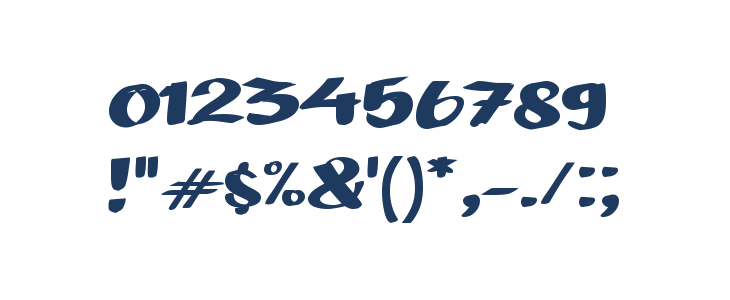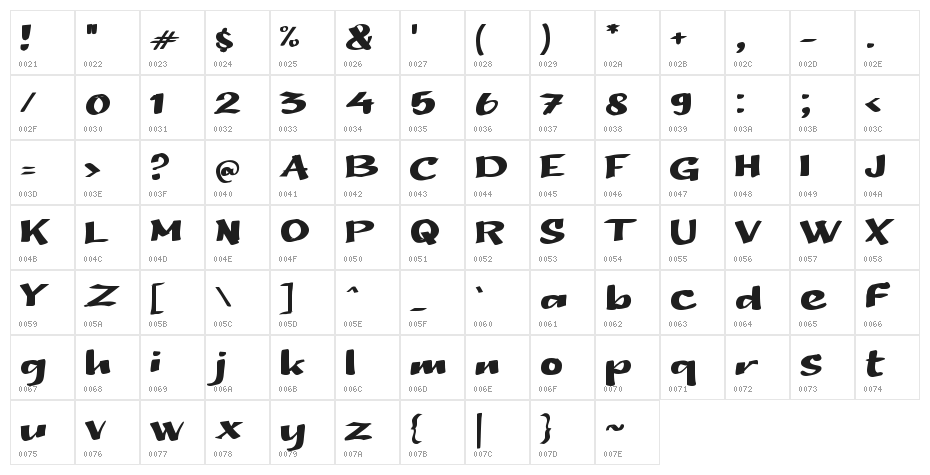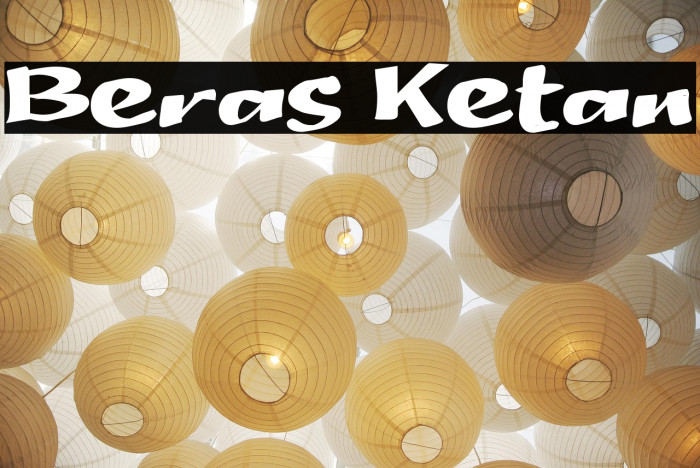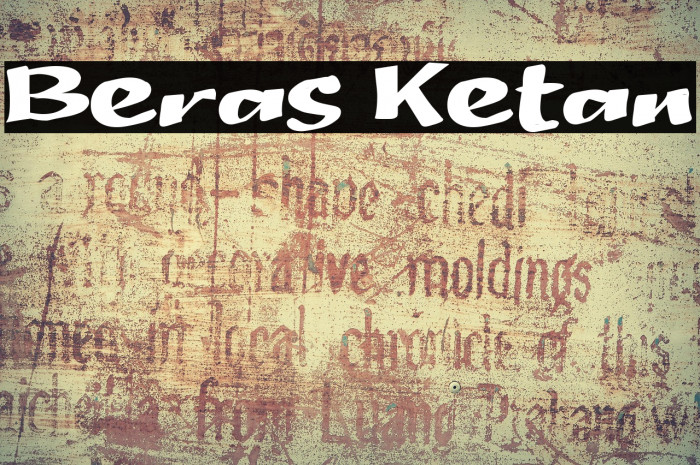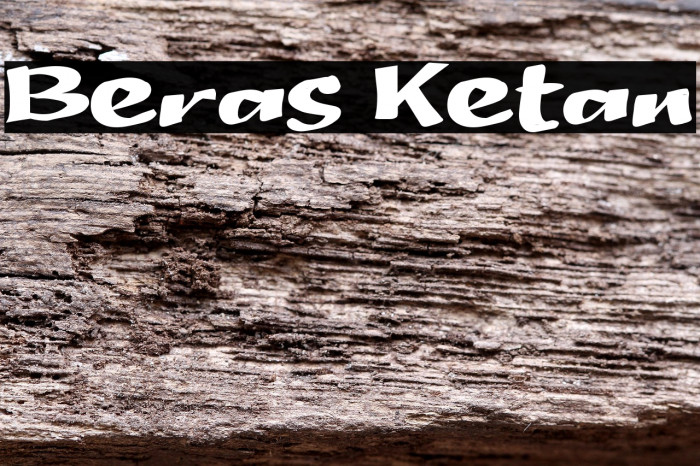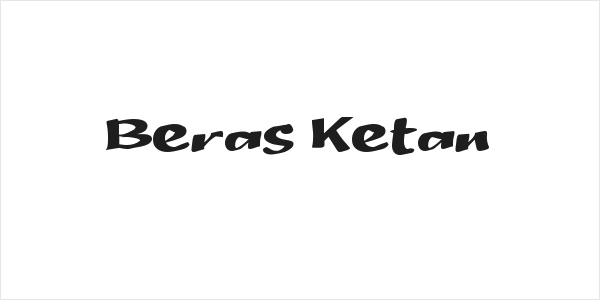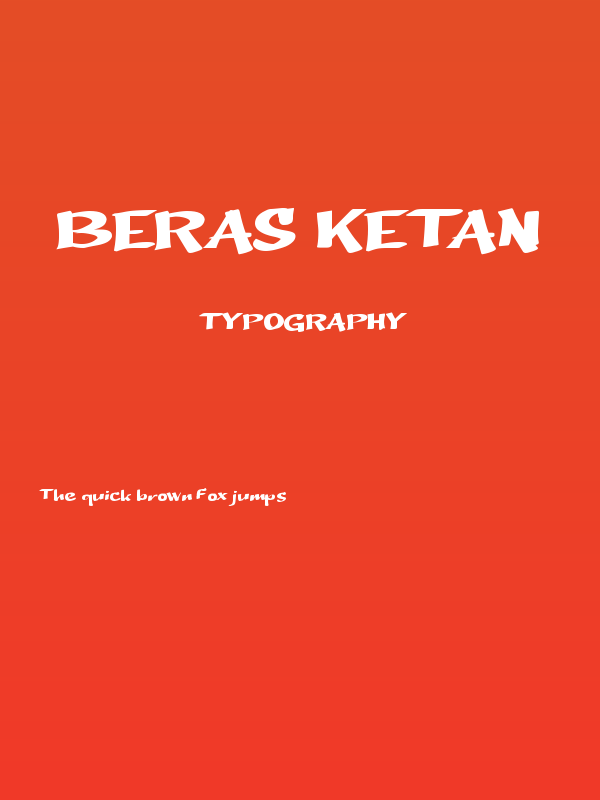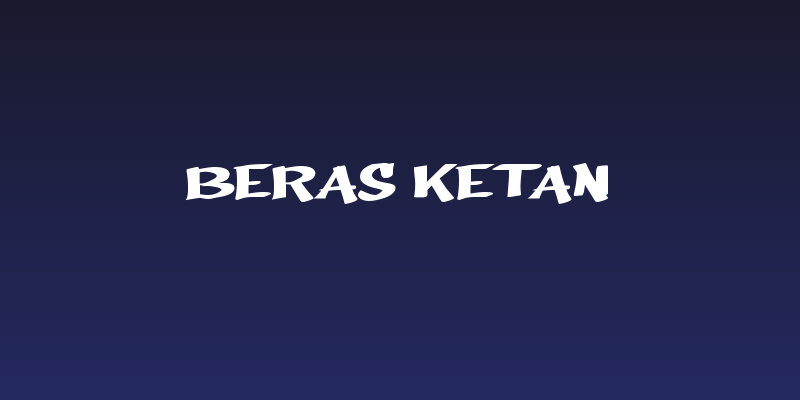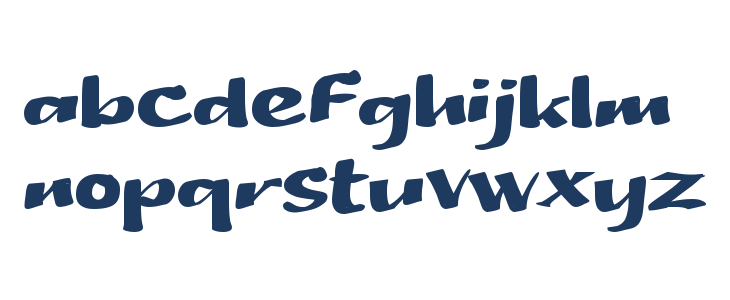
Beras Ketan Font
Beras Ketan Description
This font features a bold and dynamic style with a handwritten appearance. The characters are thick and slightly slanted, giving a sense of movement and energy. The strokes are uneven, adding a casual and informal touch. The uppercase letters are bold and prominent, while the lowercase letters maintain a consistent flow. The numbers and special characters follow the same bold and expressive style, making them stand out. This font is ideal for projects that require a personal and energetic feel.